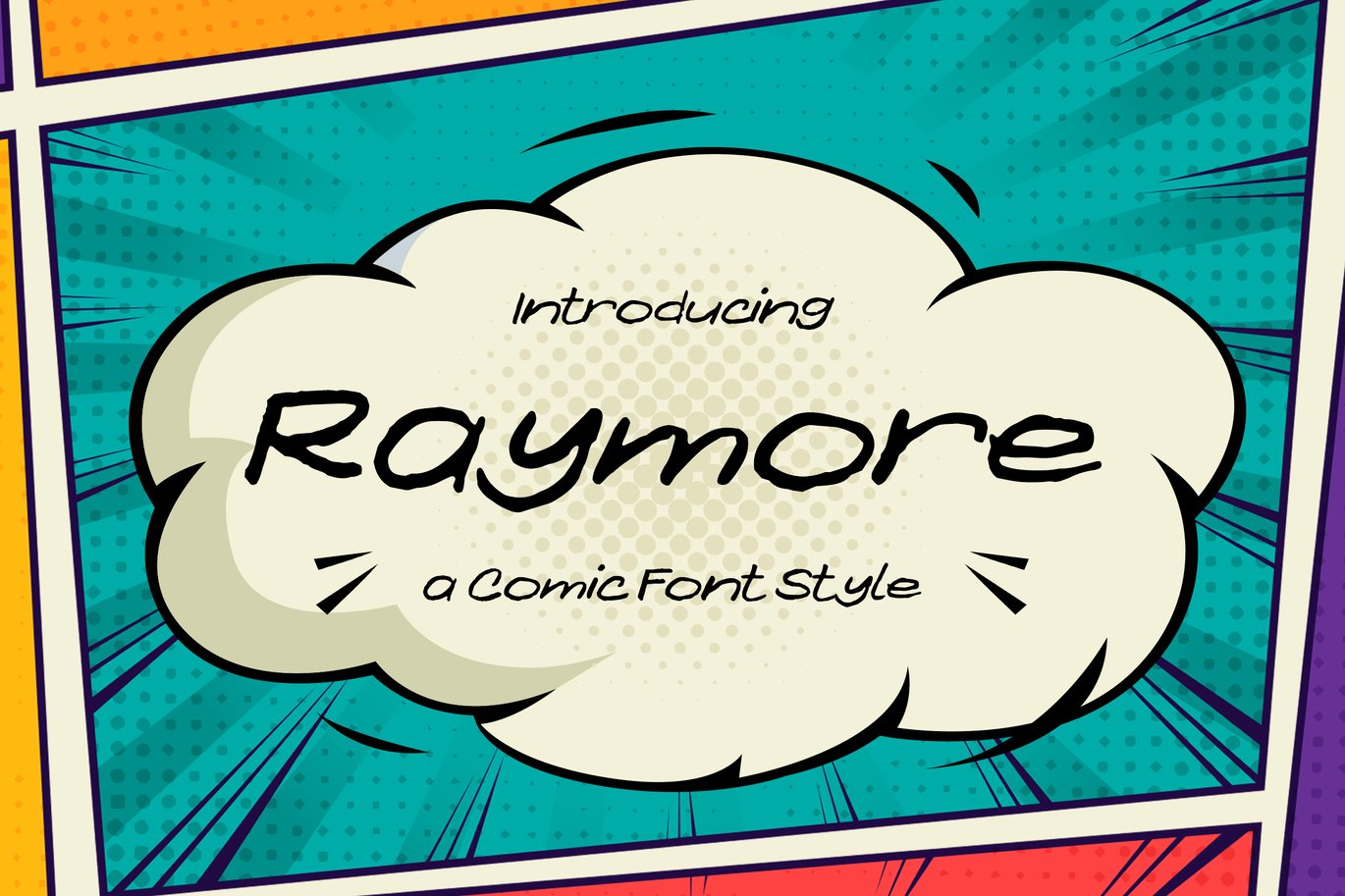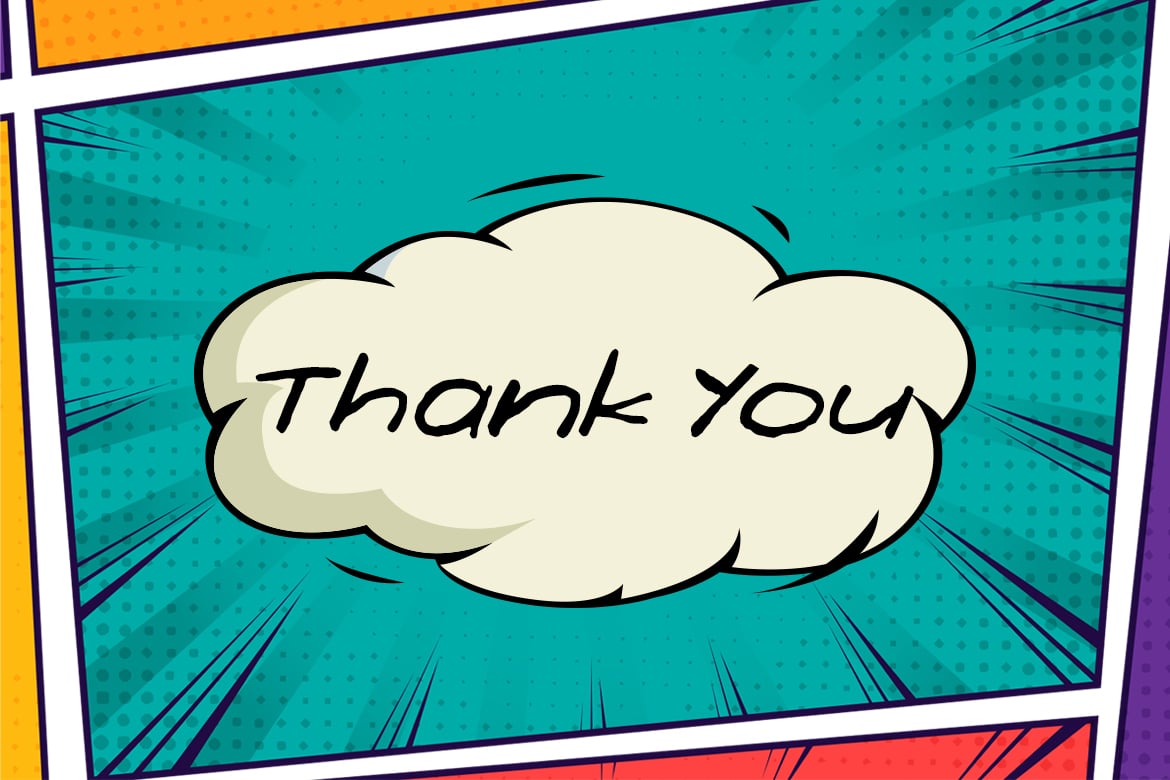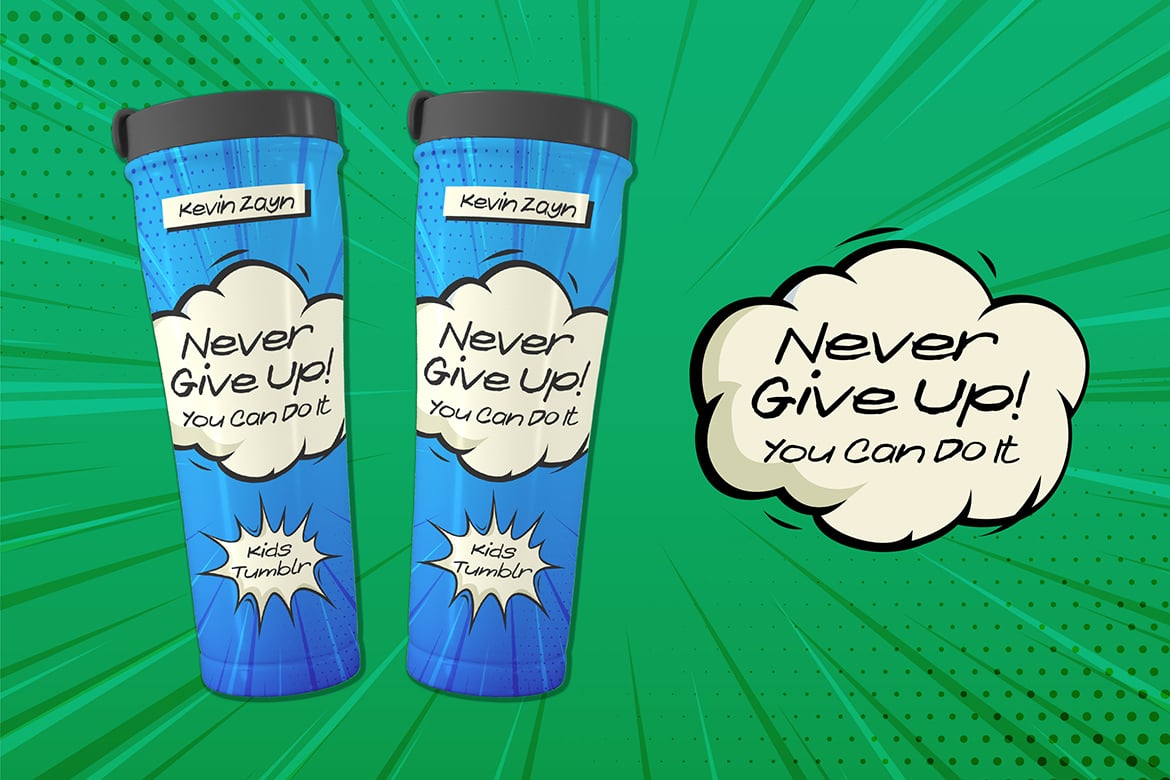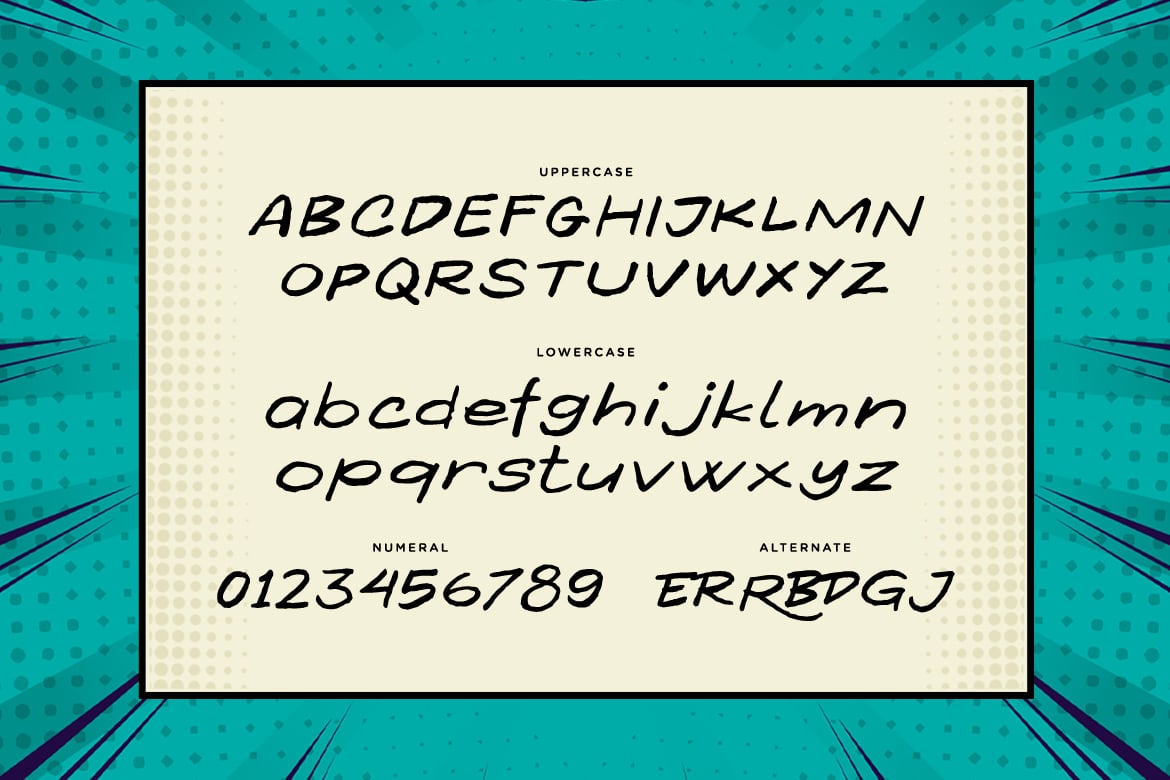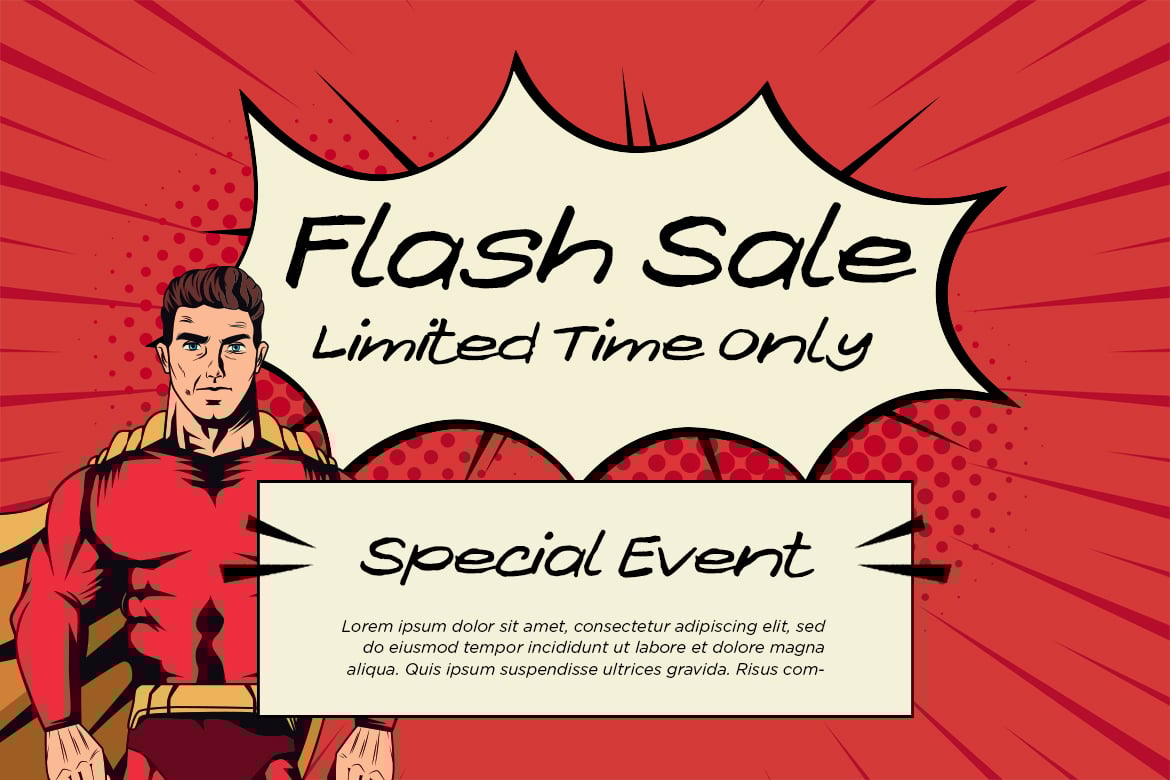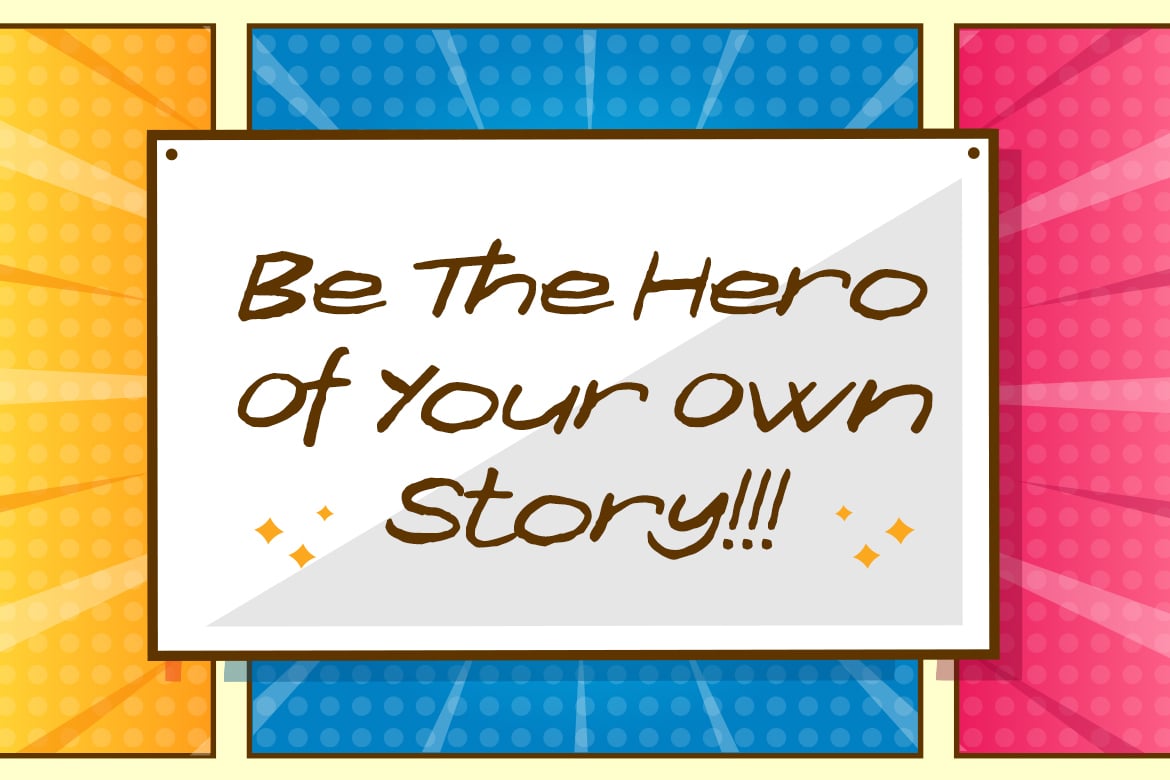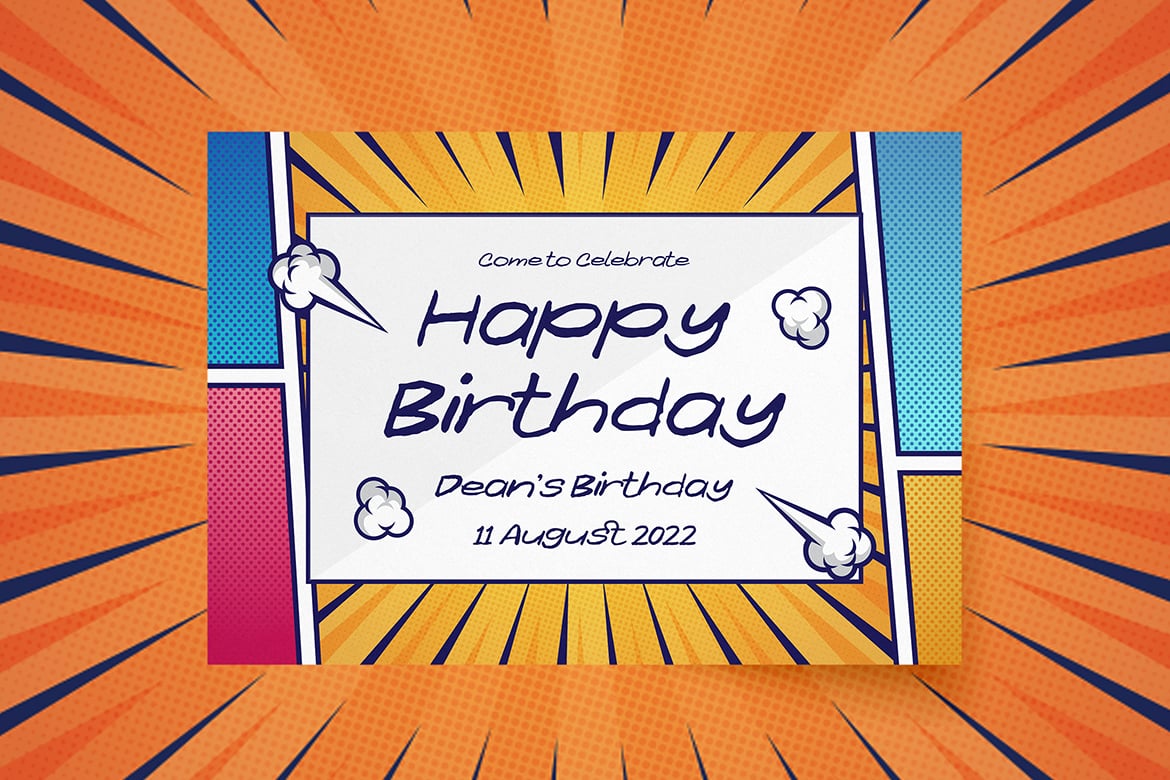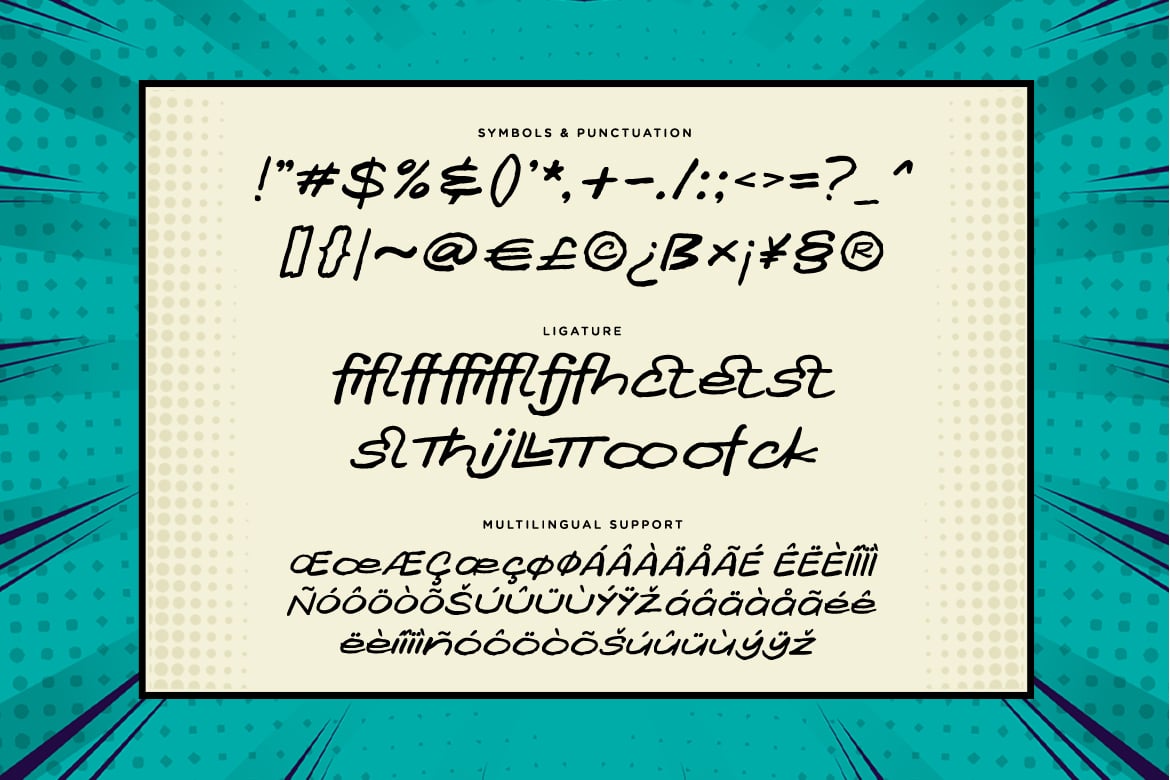
Raymore – A Comic Font Style
Raymore is a simple comic font with unique style.
Get inspired by its unique charm, and turn any design project into a true standout!